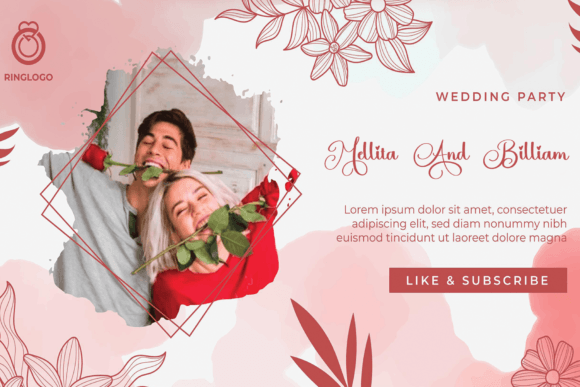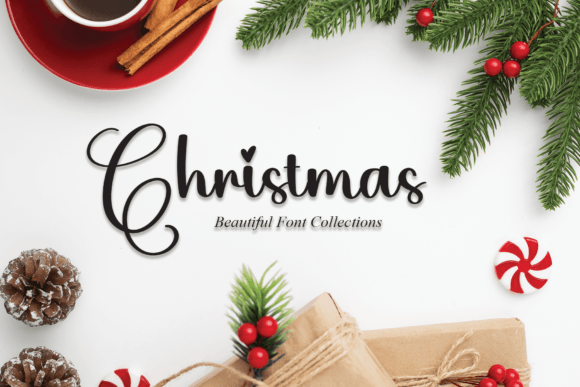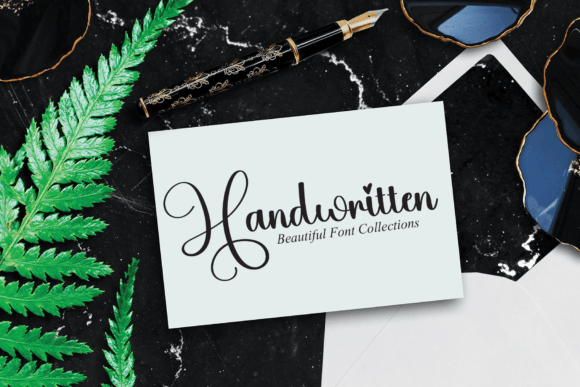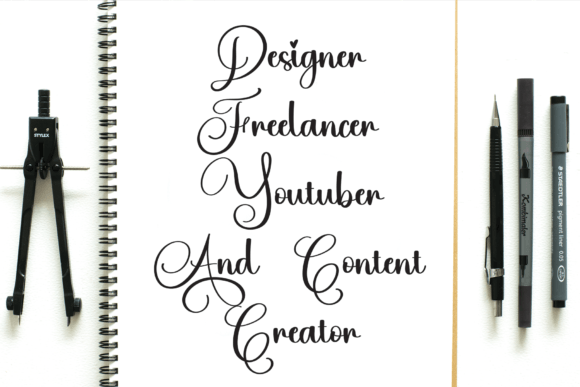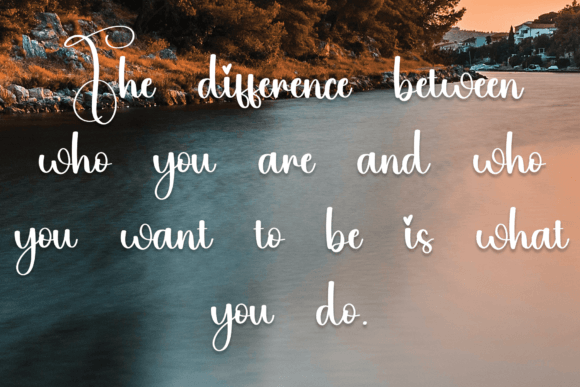
About Earrings Font
The most recent style of letters presents a versatile and contemporary design that is perfect for a myriad of creative projects. Whether you’re working on wall displays, designing wedding invitations, creating social media post logos, developing advertisements, conceptualizing product packaging, crafting product designs, working on labels, enhancing photography, implementing watermarks, extending invitations, or engaging in stationery design, these letters are crafted to cater to a diverse array of creative needs.
Imagine transforming a space with a captivating wall display that not only captures attention but also exudes a modern and stylish flair through the latest style of letters. The contemporary design elements transform any environment into a visually striking showcase of creativity and innovation.
For special occasions like weddings, these letters offer a contemporary touch to invitations, setting the stage for a memorable and personalized celebration. The handwritten aesthetic of the letters adds a unique and intimate element, enhancing the significance of the event.
In the digital realm, the latest style of letters shines in social media post logos and advertisements. Their contemporary design ensures that your brand or message stands out, conveying a sense of modernity and relevance. Whether you’re promoting a product, service, or event, these letters add a distinctive and stylish flair to your online presence.
When it comes to product packaging and design, the latest style of letters elevates the visual appeal, transforming labels into visually appealing representations of your brand. The contemporary nuances contribute to a cohesive and aesthetically pleasing presentation, making your products more memorable and visually appealing to consumers.
Photography projects benefit from the contemporary aesthetic of these letters, especially when used as watermarks. The letters seamlessly integrate into images, adding a touch of modernity and personalization to your visual narrative.
Event invitations, whether for formal gatherings or intimate affairs, are elevated by the contemporary spirit of these letters, ensuring a memorable and stylish experience for recipients. Even in the realm of stationery, these letters bring a touch of modern sophistication, allowing for the creation of beautifully designed and personalized letterheads, notecards, and other stationery items.
In summary, the latest style of letters is more than just characters on a page; they are a tool for contemporary creative expression. Whether you’re working on a grand project or a more intimate affair, these letters infuse a handwritten taste that adds a layer of modern and stylish flair. With the latest style of letters, your projects become not just visually appealing but also expressions of contemporary creativity.